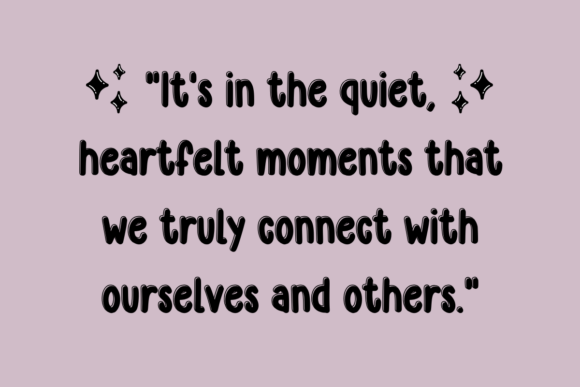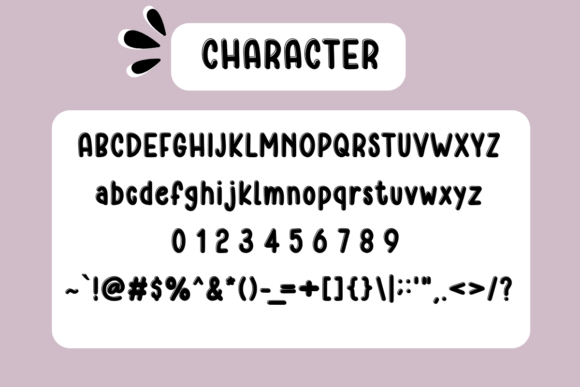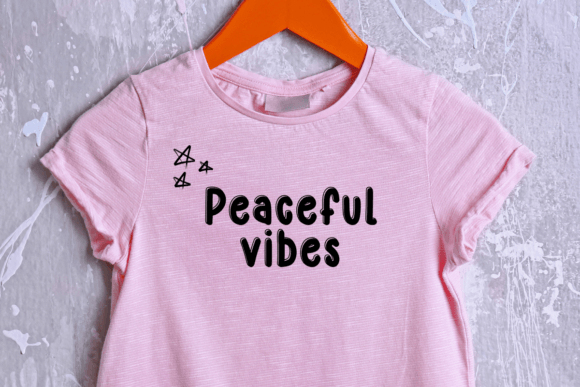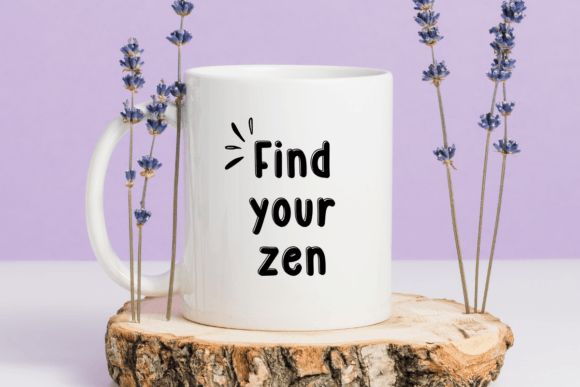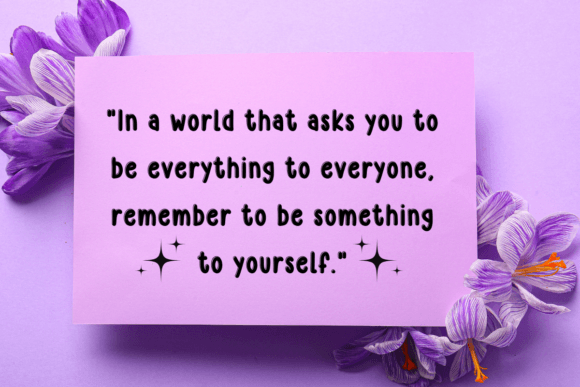
Introduction to Heartfelt Moment Font Font
Fonts play a crucial role in design, and the Heartfelt Moment Font font is a typeface that brings both character and versatility to any project. Whether you’re working on a branding project, a website, or a print design, the Heartfelt Moment Font font offers a unique style that can elevate your work.
This playful sans-serif font is perfect for a variety of uses, including memos, journals, notes, planners, KDP interiors, greeting cards, invitations, scrapbooks, diaries, and printables.
Ideal for teachers, daily planners, notepads, calendars, to-do lists, workbooks, and templates, it adds charm to weekly and monthly planners, notebook paper, and more Whether for personal or professional projects, this font is versatile and stylish.
Key Features of Heartfelt Moment Font Font
Why Choose Heartfelt Moment Font Font?
The Heartfelt Moment Font font is more than just a typeface – it’s a design tool that helps you communicate your message with style and clarity. Its unique character set and versatile design make it suitable for a wide range of applications, from elegant invitations to bold headlines.
With its carefully crafted letterforms and balanced proportions, the Heartfelt Moment Font font ensures readability and visual appeal across all mediums.
What makes Heartfelt Moment Font font special?
The Heartfelt Moment Font font stands out with its unique design, exceptional readability, and versatility across various design applications.